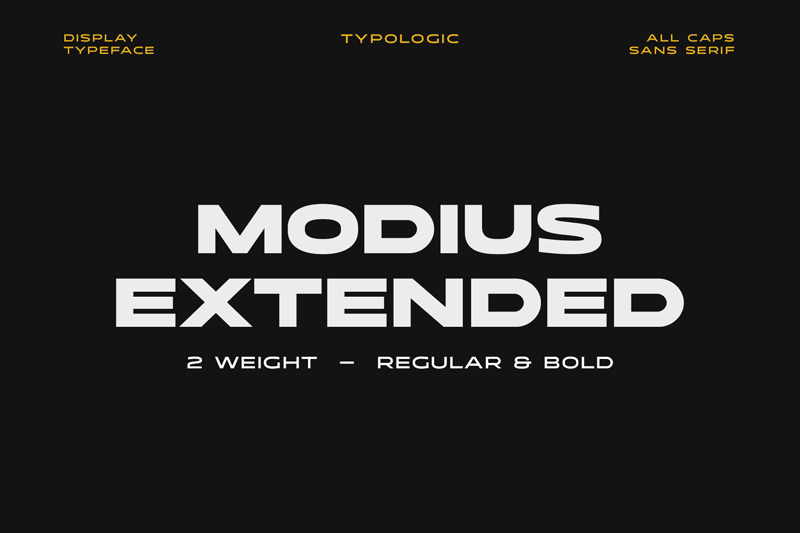
Font name: | Modius |
Author: | Typologic |
Note by Typologic | |
Introducing modius is a extended custom type that brings both boldness and simplicity. Inspired by a simple and modern urban design style which impresses clearly and loudly if used as headline text. It consists of two font weights, regular and bold, each carrying a minimalist and strong message. Modius is bold by nature, it always finds space for an elegant touch and a modern display that can be used for streetwear brand, posters, album art, and other typography needs. Commercial License : https://crmrkt.com/77JJgq Thanks. |